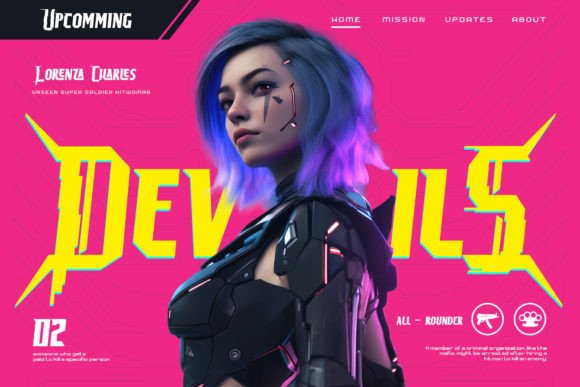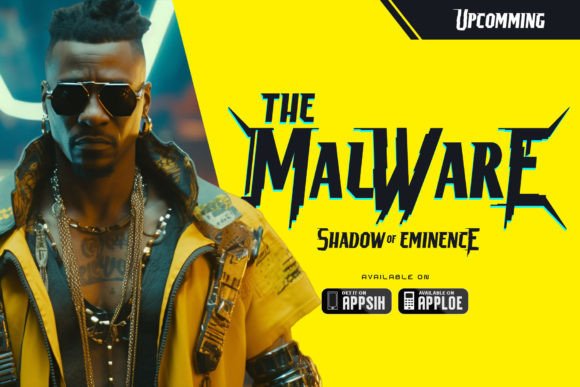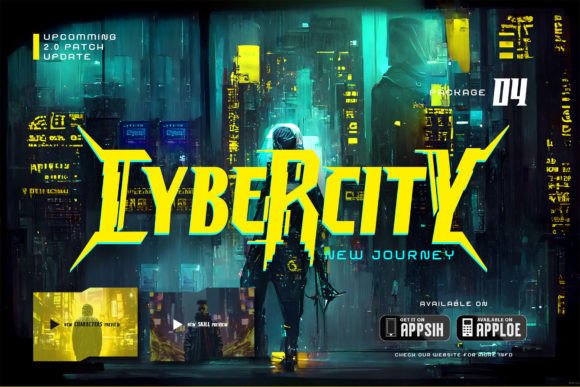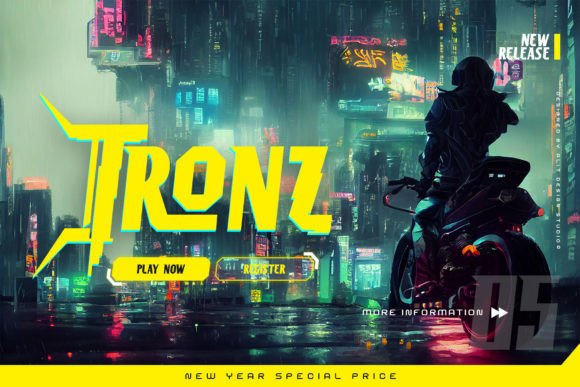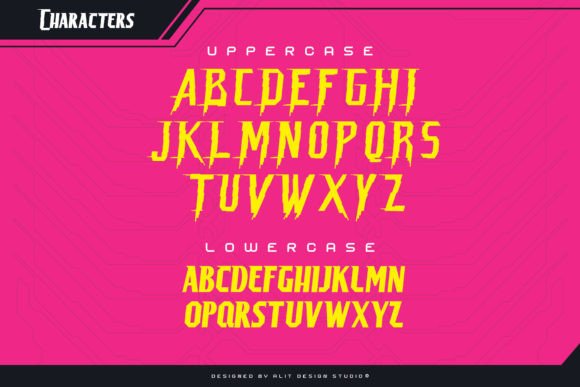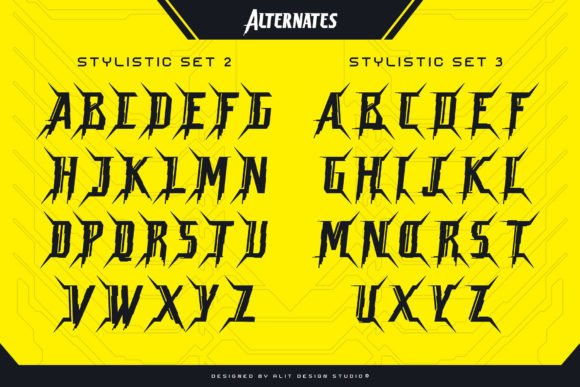
Introducing “Arcade Funk” Typeface – Where Modern Funk Meets Brutalism!
Unleash the rebellious spirit of punk futuristic games with our cutting-edge typeface, “Arcade Funk.” This font is not just a type; it’s a statement. Embrace the fusion of modern funk and brutalism, creating a visual language that speaks volumes in the digital realm.
Funky Vibes, Modern Appeal
Arcade Funk brings a vibrant blend of funky aesthetics and contemporary appeal. Each character is a testament to the bold, rebellious spirit of punk, making it the perfect choice for games that defy the conventional. The typeface’s unique design elements, such as its distressed texture and geometric shapes, evoke a sense of nostalgia and futurism, transporting you to a world of pixelated graphics and electric dreams.
Brutalism Redefined
Dive into the world of brutalism with a modern twist. The typeface draws inspiration from the raw, unapologetic architectural style, infusing it with a touch of futurism to create a truly unique visual experience. The result is a bold, edgy font that’s as much a statement piece as it is a functional tool for designers. With Arcade Funk, you can add a dash of rebelliousness to your designs, setting them apart from the ordinary.
Versatility at its Core
Whether you’re designing game interfaces, posters, or promotional materials, Arcade Funk adapts effortlessly. Its versatility makes it a go-to choice for a wide range of applications, from digital gaming platforms to print materials. The font’s legibility and clarity ensure that your message is conveyed with impact, regardless of the medium.
Key Features of Arcade Funk
- Unique Fusion of Styles: A bold blend of modern funk and brutalism, creating a distinctive visual identity.
- Highly Legible: Designed for clarity, ensuring your message is delivered with impact.
- Versatile: Suitable for a wide range of applications, from digital gaming platforms to print materials.
- Distressed Texture: Adds a layer of depth and nostalgia, evoking the spirit of vintage arcade games.
- Geometric Shapes: Incorporates geometric shapes, providing a modern and edgy feel.
Design Inspiration
Arcade Funk draws inspiration from the classic video games of the 80s and 90s, combined with the raw aesthetic of brutalist architecture. The result is a typeface that’s both retro and futuristic, with a dash of rebelliousness. Imagine the pixelated graphics of old-school video games, merged with the bold, geometric shapes of brutalist design. That’s Arcade Funk – a font that’s as much a tribute to the past as it is a bold statement for the future.
Use Cases
Arcade Funk is perfect for designers and crafters looking to add a bold, edgy touch to their projects. Here are some use cases to get you started:
- Game Development: Use Arcade Funk to create bold, eye-catching titles, menus, and interfaces for your games.
- Poster Design: Add a touch of rebelliousness to your posters with Arcade Funk’s unique blend of funk and brutalism.
- Branding and Identity: Use Arcade Funk to create a bold, memorable brand identity that sets you apart from the competition.
Arcade Funk is more than just a typeface – it’s a statement. With its unique fusion of modern funk and brutalism, this font is sure to make a bold impact in the world of design. Whether you’re a game developer, graphic designer, or crafter, Arcade Funk is the perfect choice for those looking to push the boundaries of creativity. So why wait? Unleash the rebellious spirit of punk futuristic games with Arcade Funk, and take your designs to the next level!